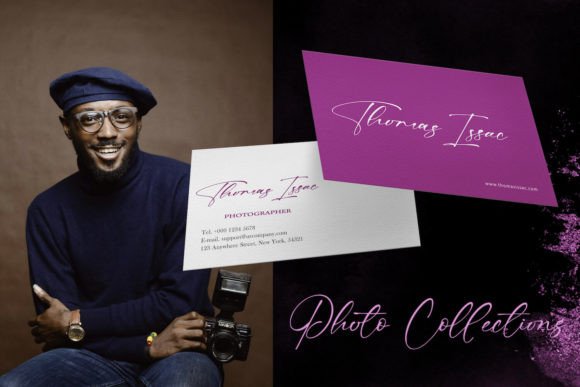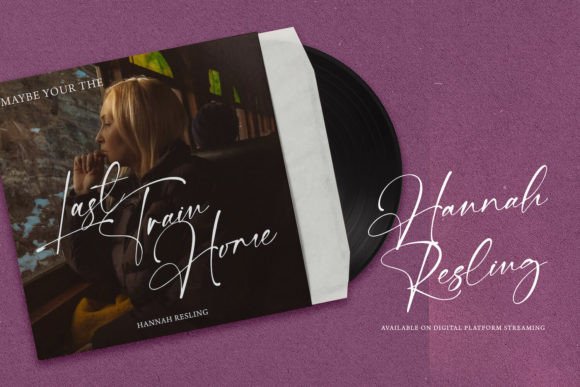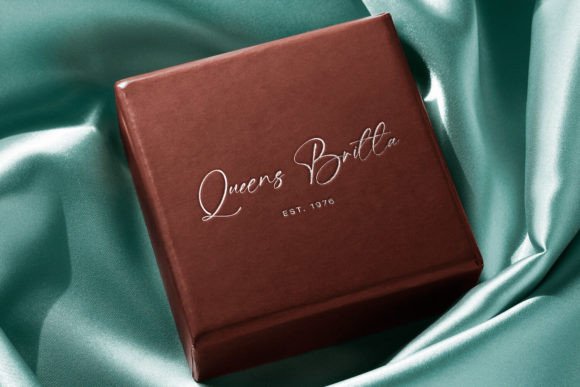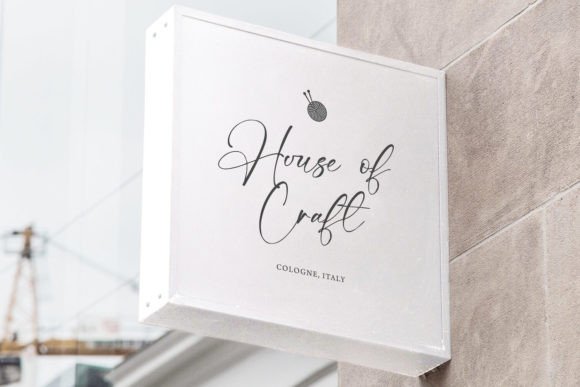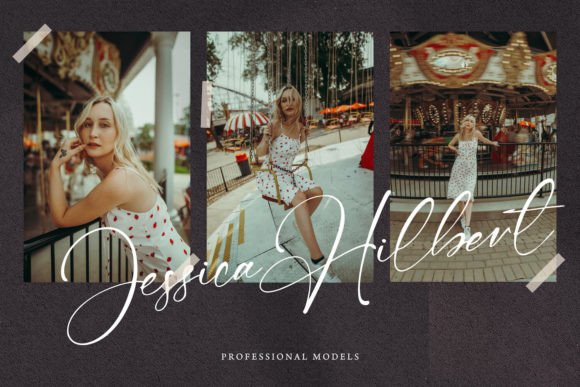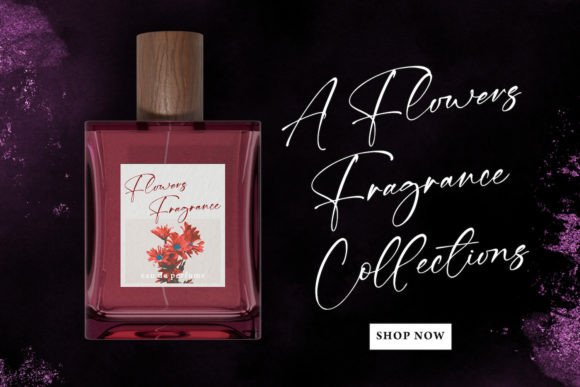
Introduction to Black Ming Font
Black Ming is an exquisite handwritten font, masterfully designed to become a true favorite.
Key Features of Black Ming Font
Why Choose Black Ming Font?
Black Ming Font offers exceptional quality and versatility, making it a valuable addition to your design toolkit. Whether you’re creating for personal projects or commercial use, Black Ming Font delivers professional results.